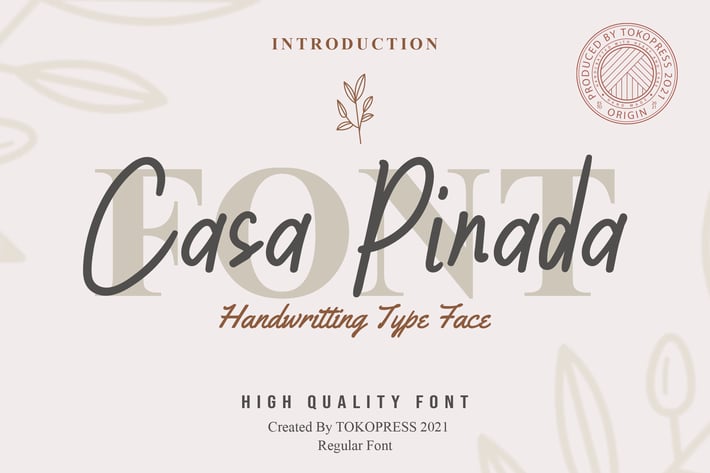
Casa Pinada - Girly Fancy font
Casa Pinada is a handwritten script font crafted with elegant rhythm, soft curves, and a smooth, flowing baseline—perfect for fashion-forward branding and editorial layouts. Its slightly bouncy strokes and chic ligatures give off an effortlessly stylish vibe, making it ideal for modern lifestyle products and high-end packaging. With a calming, graceful form, it balances natural handwriting aesthetics with contemporary design usability.
Whether you're designing an Instagram quote, a beauty brand logo, or a fashion promo poster, Casa Pinada helps your message stand out with a gentle yet confident presence. Its handwritten quality adds warmth and authenticity to digital designs, while its fluid strokes bring a personal, editorial feel to any visual identity.
Key Features :
Handwritten Look: Authentic brush-style script with modern femininity
Elegant Flow: Balanced spacing and curves for smooth readability
High Versatility: Ideal for logos, packaging, magazines, and personal branding
Expressive Forms: Subtle bounce and dynamic rhythm keep your text engaging